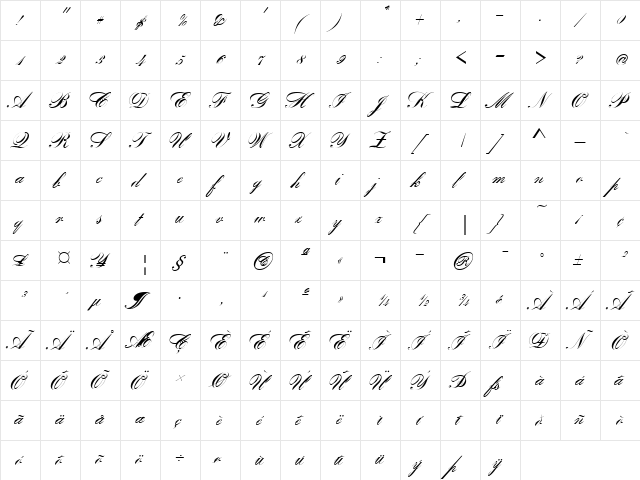
Bank Script Joining D Regular
Design Context for Bank Script Joining D Typeface
Bank Script Joining D brings a calligraphic fluidity to the page — its connecting strokes and expressive curves give it an unmistakably human quality.
Font Pairing: Combine Bank Script Joining D with a simple geometric sans for maximum contrast — the tension between flowing curves and clean structure is a classic typographic pairing.
Pro Tip: Pair Bank Script Joining D with a clean sans-serif for supporting text. The contrast between fluid script and geometric structure creates an elegant typographic hierarchy.